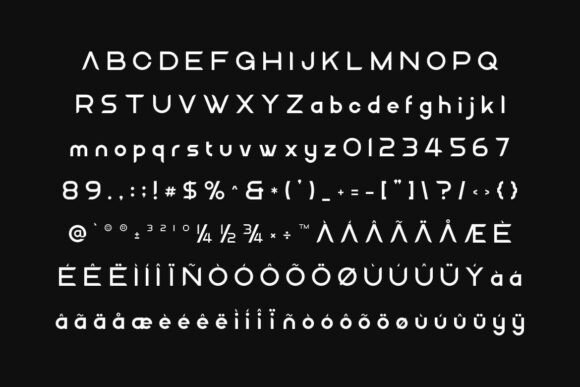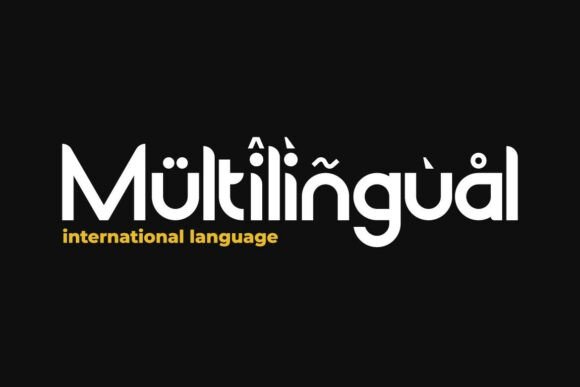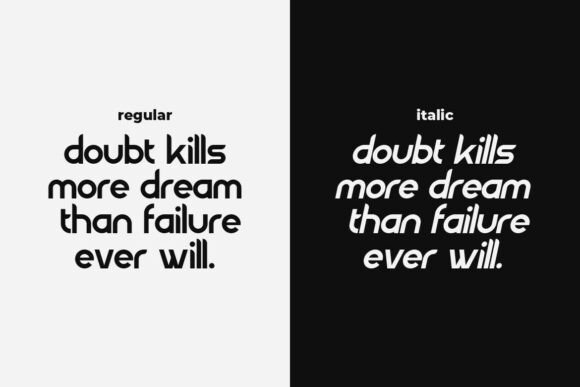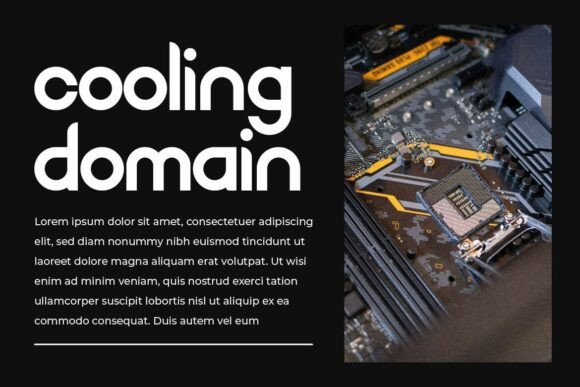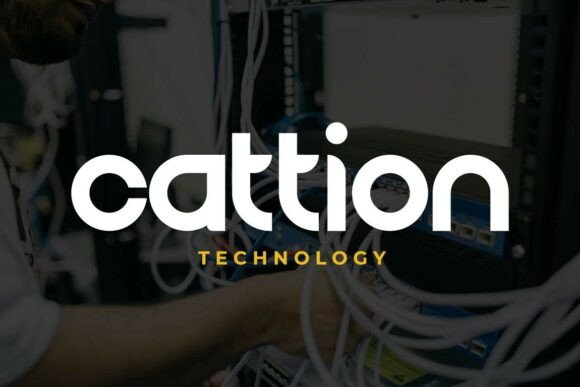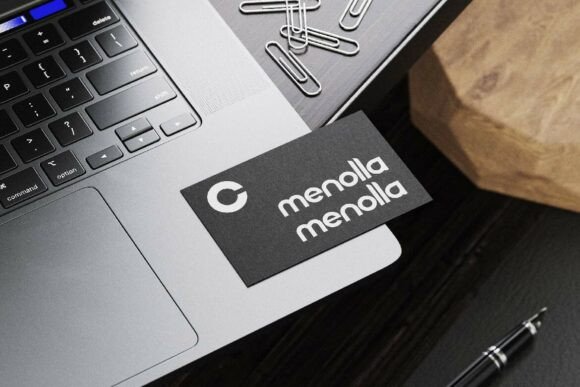
Introducing Ancola Font: The Ultimate Sans Serif for Stunning Logos and Brand Identities
In the world of design, fonts play a crucial role in creating a lasting impression. A well-crafted font can elevate a brand’s identity, making it more memorable and recognizable. Ancola Font is one such typeface that has been gaining popularity among designers and crafters for its clean, versatile, and professional aesthetic. In this article, we’ll dive into the features, benefits, and uses of Ancola Font, exploring why it’s becoming a go-to choice for creating strong, memorable logos and professional brand identities.
What is Ancola Font?
Ancola Font is a sans serif font designed with a geometric structure, sharp lines, and minimalistic elegance. Its clean and simple design makes it perfect for a wide range of applications, from wordmarks and packaging to editorial titles, website headers, and social media graphics. The font’s versatility and legibility make it an excellent choice for designers looking to create a professional brand identity.
Key Features of Ancola Font
- Geometric Structure: Ancola Font boasts a geometric structure that gives it a modern and sleek look. The font’s shapes are carefully crafted to create a sense of balance and harmony.
- Sharp Lines: The font’s sharp lines add a touch of sophistication and elegance, making it perfect for high-end brands and luxury products.
- Minimalistic Elegance: Ancola Font’s minimalistic design ensures that it remains clean and uncluttered, allowing the brand’s message to take center stage.
- Versatility: The font’s versatility makes it suitable for a wide range of applications, from digital media to print materials.
Benefits of Using Ancola Font
So, why should designers and crafters choose Ancola Font for their projects? Here are some benefits that make it an attractive choice:
- Improved Legibility: Ancola Font’s clean design ensures that text is easy to read, even at small sizes.
- Professional Look: The font’s geometric structure and sharp lines give it a professional and modern look that’s perfect for businesses and brands.
- Flexibility: Ancola Font can be used in a variety of contexts, from digital media to print materials, making it a versatile addition to any design toolkit.
- Memorability: The font’s unique design elements make it more memorable, helping brands to stand out in a crowded market.
Uses of Ancola Font
Ancola Font is suitable for a wide range of applications, including:
- Wordmarks: The font’s clean design makes it perfect for creating simple, yet effective wordmarks.
- Packaging: Ancola Font’s geometric structure and sharp lines make it ideal for packaging design, adding a touch of sophistication to product labels.
- Editorial Titles: The font’s elegance and legibility make it suitable for editorial titles, adding a touch of professionalism to articles and publications.
- Website Headers: Ancola Font’s clean design and versatility make it perfect for website headers, improving user experience and brand recognition.
- Social Media Graphics: The font’s modern look and feel make it suitable for social media graphics, helping brands to stand out in a crowded online landscape.
In conclusion, Ancola Font is a versatile and professional sans serif font that’s perfect for creating strong, memorable logos and professional brand identities. Its geometric structure, sharp lines, and minimalistic elegance make it suitable for a wide range of applications, from wordmarks and packaging to editorial titles, website headers, and social media graphics. With its improved legibility, professional look, flexibility, and memorability, Ancola Font is an excellent choice for designers and crafters looking to elevate their brand’s identity.
Whether you’re a seasoned designer or a crafty entrepreneur, Ancola Font is definitely worth exploring. Its unique design elements and versatility make it an attractive addition to any design toolkit. So, why not give Ancola Font a try and see how it can help take your brand’s identity to the next level?